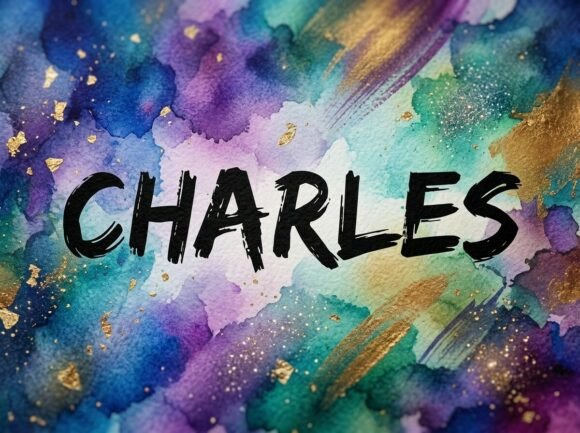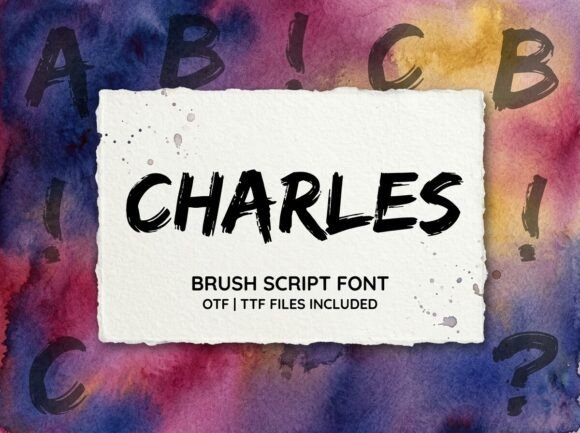
Introducing Charles Font: A Stunning Decorative Display Font
Are you tired of using the same old fonts for your designs? Do you want to add a touch of uniqueness and creativity to your projects? Look no further than Charles Font, a breathtaking decorative display font that’s sure to turn heads. In this article, we’ll dive into the features and benefits of Charles Font, and explore how it can elevate your designs to the next level.
Charles Font is a stunning decorative display font designed to be the center of attention. With its unique artistic elements and strong visual personality, this font is perfect for creators who want to break away from the ordinary. Whether you’re working on bold headlines, artistic logos, or creative packaging, Charles Font is the perfect choice. Its versatility and professional finish make it an excellent addition to any design project.
Before you make a purchase, it’s essential to note that Charles Font is an ALL-CAPS (Uppercase Only) display typeface. This means that it does not include lowercase letters. It’s specifically designed for high-impact headlines, logos, and decorative initials where every letter is a work of art.
Charles Font is an excellent choice for designers and crafters who want to add a touch of elegance and sophistication to their projects. Here are some ways you can use Charles Font:
- Headlines and Titles: Use Charles Font to create bold and eye-catching headlines that grab attention.
- Logos and Branding: Create a unique and memorable logo for your brand with Charles Font.
- Packaging and Labels: Add a touch of creativity to your packaging and labels with Charles Font.
- Artistic Projects: Use Charles Font to add a decorative touch to your artistic projects, such as posters, flyers, or brochures.
Tips for Using Charles Font
Here are some tips for getting the most out of Charles Font:
- Use it sparingly: Charles Font is a decorative font, so use it sparingly to avoid overwhelming your design.
- Experiment with colors: Try pairing Charles Font with different colors to create a unique and eye-catching effect.
- Mix and match: Combine Charles Font with other fonts to create a visually appealing contrast.
Charles Font is a stunning decorative display font that’s perfect for designers and crafters who want to add a touch of uniqueness and creativity to their projects. With its unique artistic elements and strong visual personality, this font is sure to turn heads. Whether you’re working on bold headlines, artistic logos, or creative packaging, Charles Font is an excellent choice. So why wait? Get Charles Font today and take your designs to the next level!